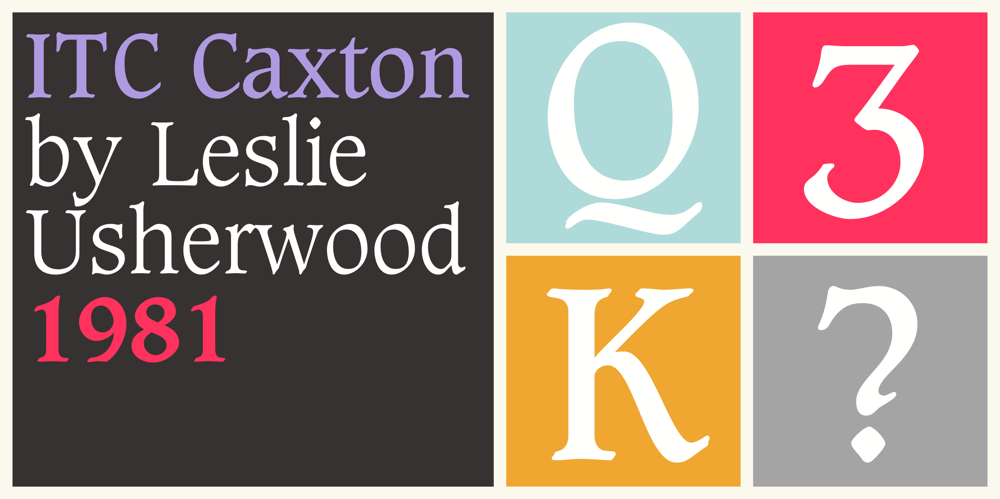
Caxton Font Family was designed by Leslie Usherwood and published by ITC. Caxton contains 6 styles and family package options. Caxton font is the work of Canadian designer Leslie Usherwood. Caxton is a serif font graced with subtle details and calligraphic influence resulting in elegant simplicity suitable for both text and display.